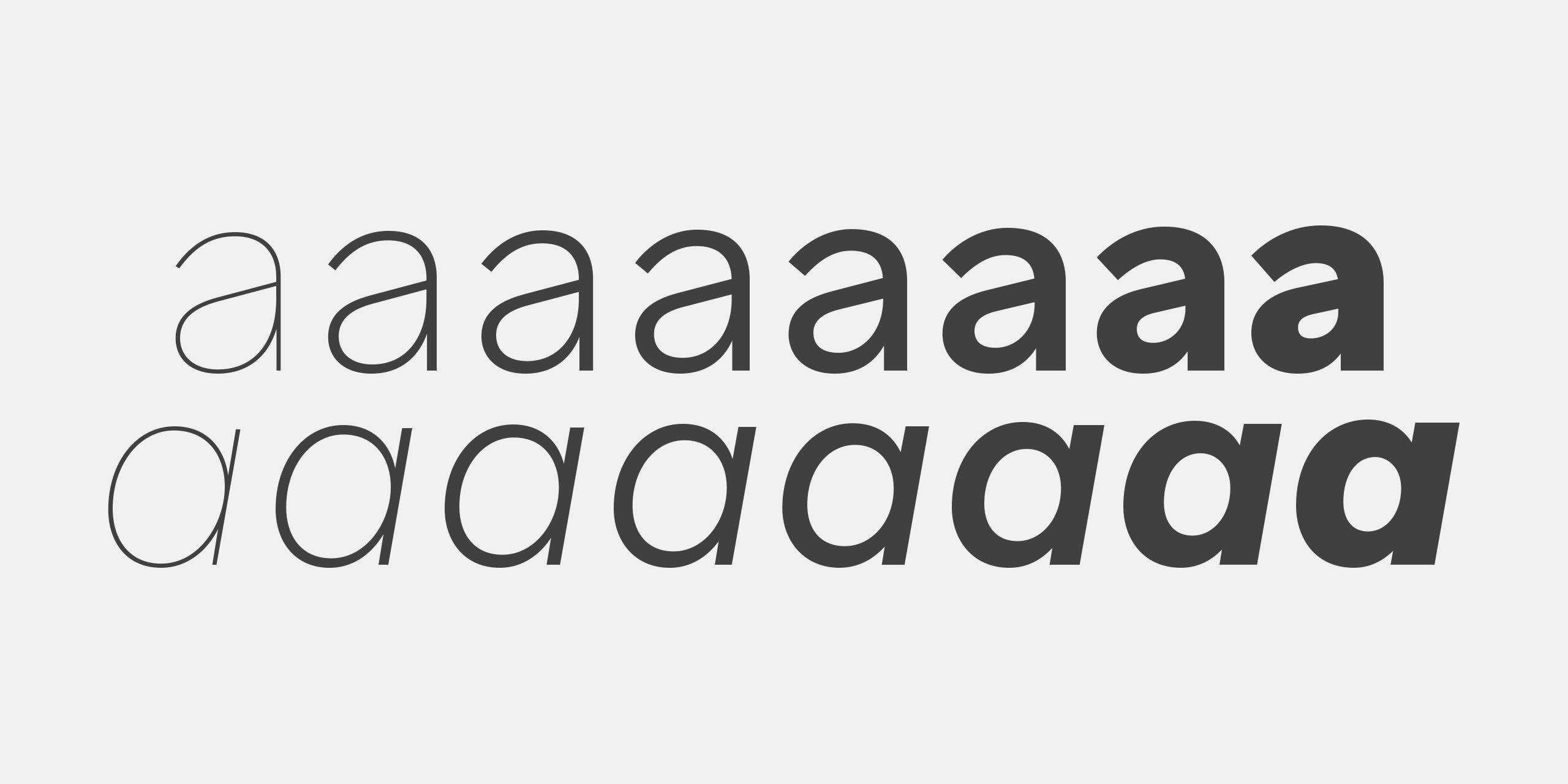
Aribau Grotesk Font is perfect for contemporary urban branding, modern architecture signage, progressive design studios, tech startup presentations, minimalist product packaging, contemporary art galleries, modern corporate communications, industrial design projects, cutting-edge advertising campaigns, avant-garde fashion labels, and any project that requires bold geometric character with progressive modernist sophistication.
What makes Aribau Grotesk Font exciting is its masterful interpretation of classic grotesk typography principles through contemporary geometric precision that embodies the essence of modernist design philosophy and urban architectural aesthetics. This striking typeface features clean angular characteristics with industrial strength that convey progressive thinking and contemporary sophistication. The font's grotesk character adds instant modern credibility and architectural appeal to any design, making it perfect for brands embracing modernist values and contemporary urban culture.
Aribau Grotesk Font comes in multiple font families including Regular, Bold, Light, Thin, Condensed, and Extended variations, providing designers with comprehensive options to create modernist compositions and achieve the perfect geometric aesthetic for architecture-focused design projects.
Whether you're developing contemporary brand identity, creating modernist architectural materials, or designing progressive urban campaigns, Aribau Grotesk Font Free Download offers the perfect solution for projects demanding authentic grotesk character and modernist sophistication. This geometric typeface excels in both print and digital applications where architectural presence is essential, ensuring your designs communicate contemporary excellence and modernist design values. The angular character and grotesk styling of Aribau Grotesk Font make it an indispensable tool for designers who prioritize modernist architecture, contemporary design, and progressive geometric aesthetics in their typographic selections.